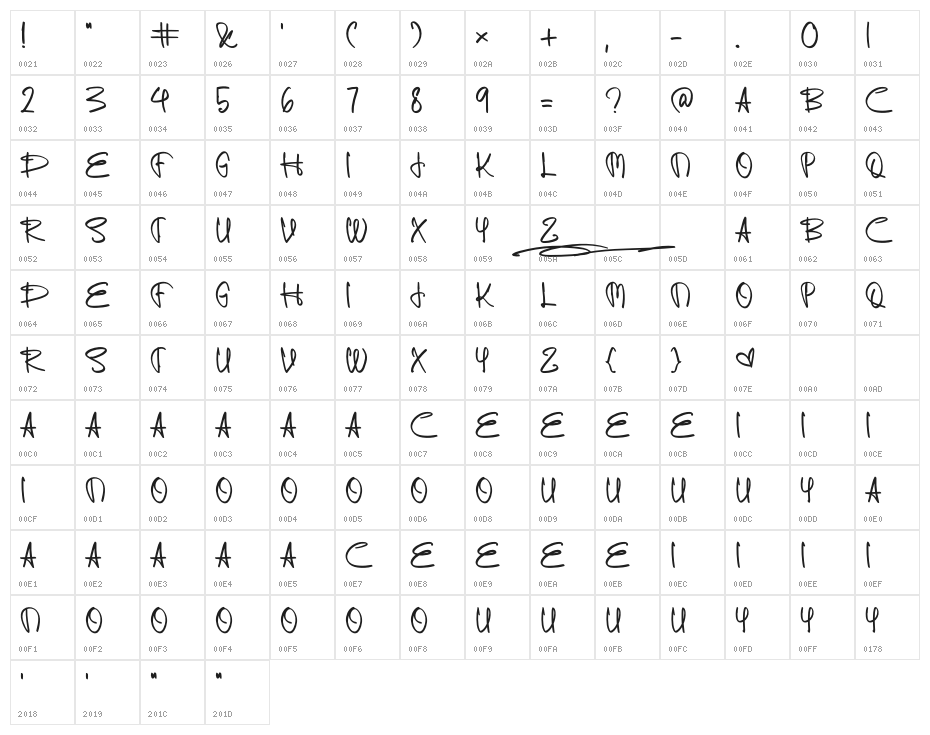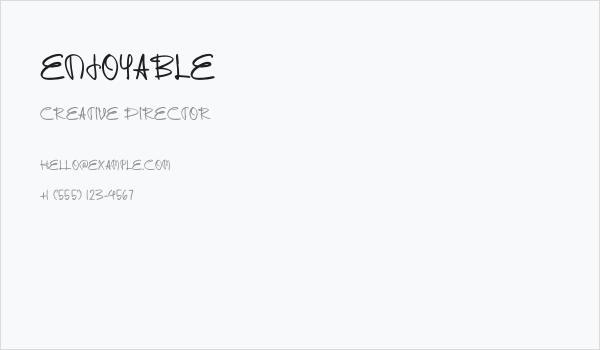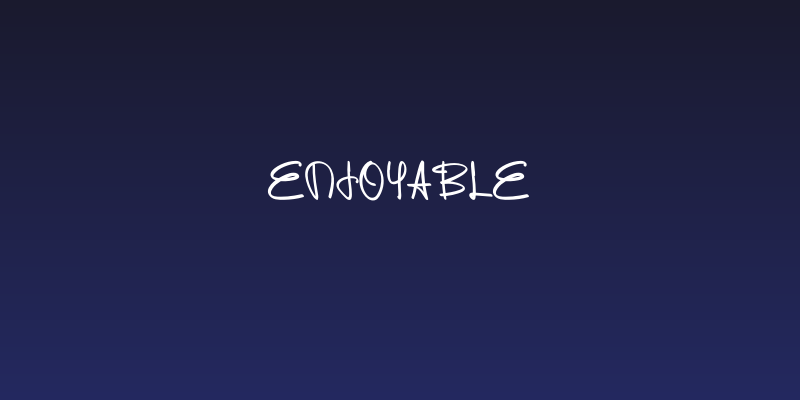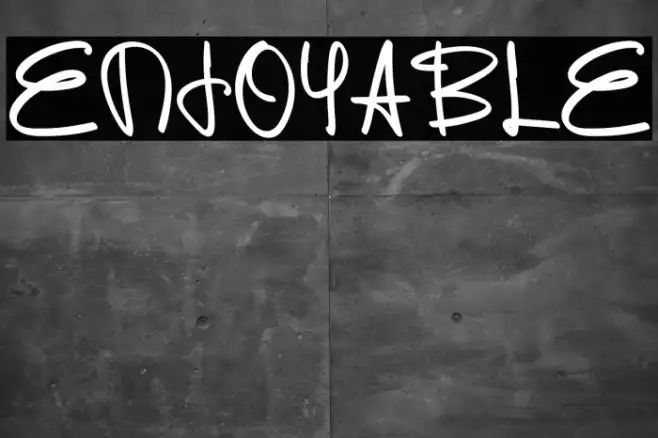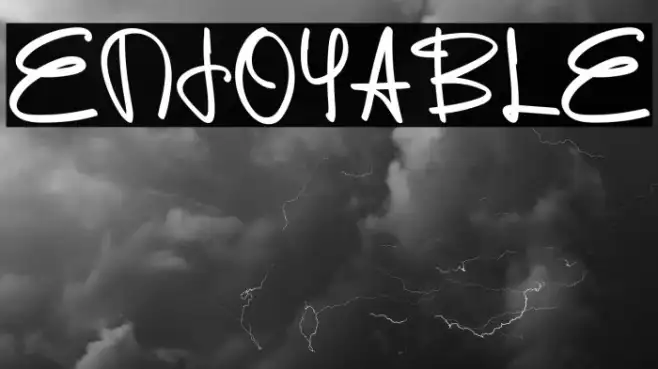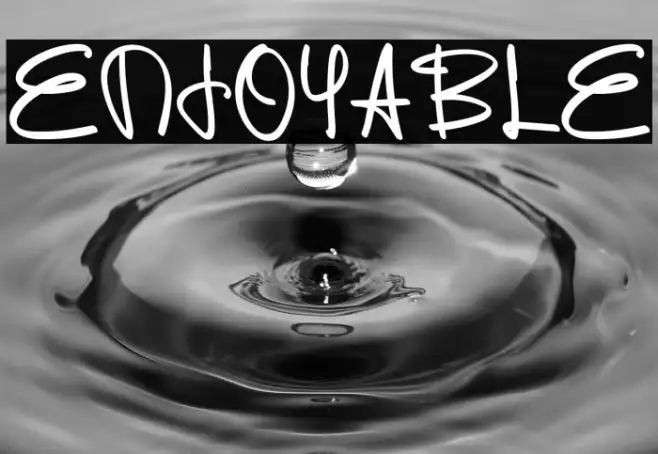
ENJOYABLE Font
ENJOYABLE Description
This font exudes a playful and energetic vibe, characterized by its handwritten style with a casual flair. The letters are slightly slanted, giving a sense of movement and dynamism. Each character is uniquely crafted with varying stroke thickness, adding to its informal and friendly appearance. The uppercase and lowercase letters maintain a consistent style, while the numerals and special characters complement the overall design. The font's whimsical nature makes it suitable for projects that aim to convey fun and creativity, such as children's books, playful branding, or casual invitations.
| Overall Style | Playful, Casual |
| Proposed Projects | Ideal for children's books, playful branding, casual invitations, and creative projects. |